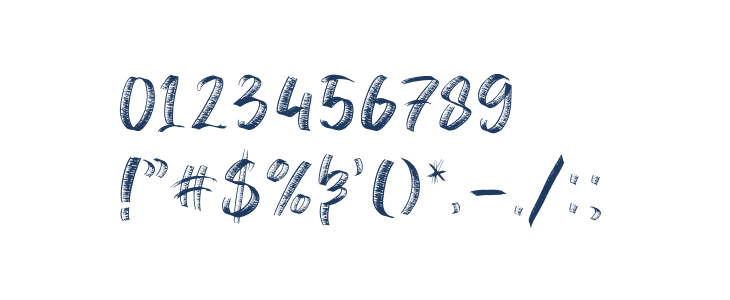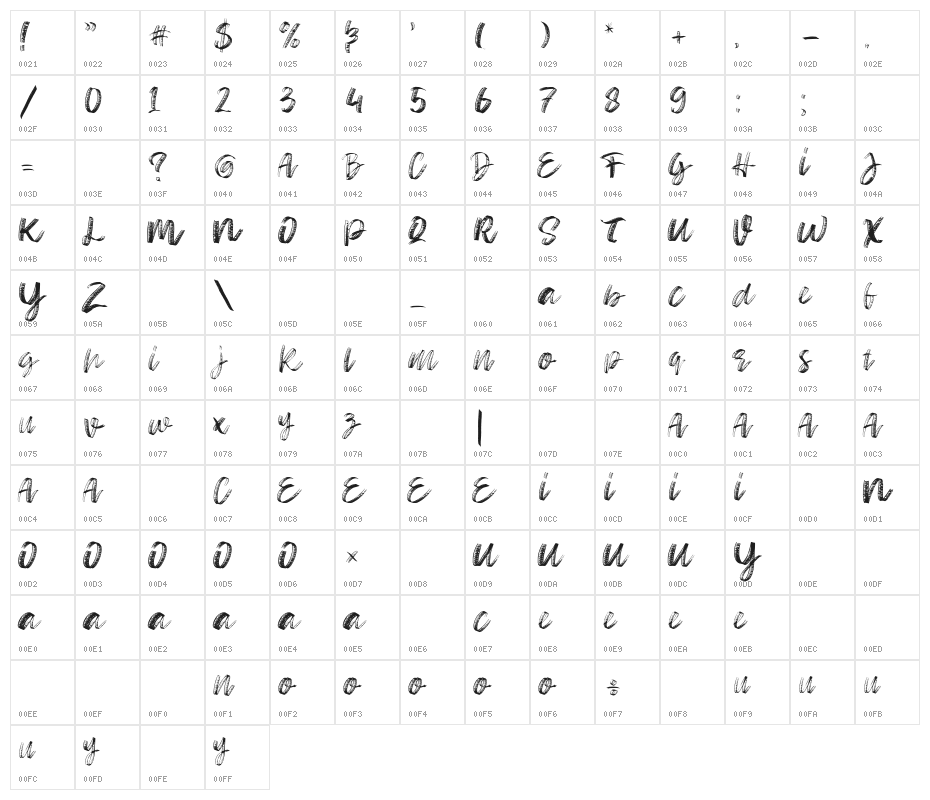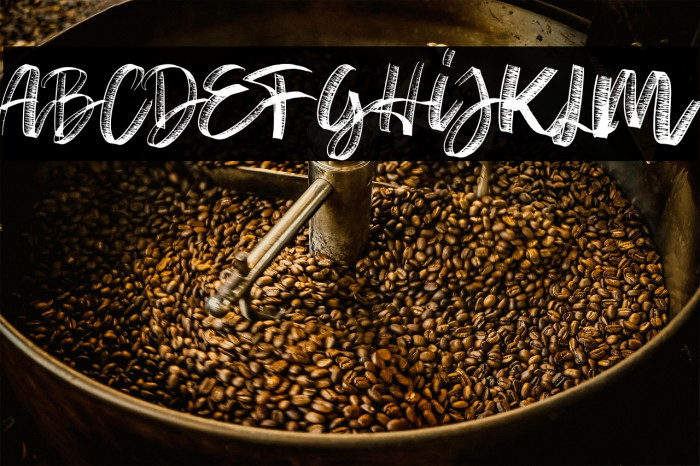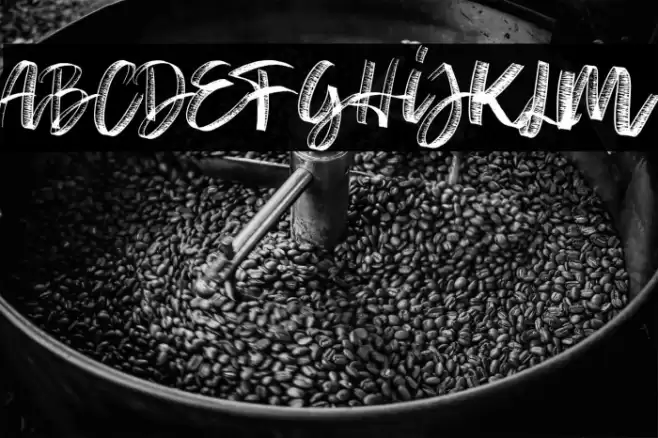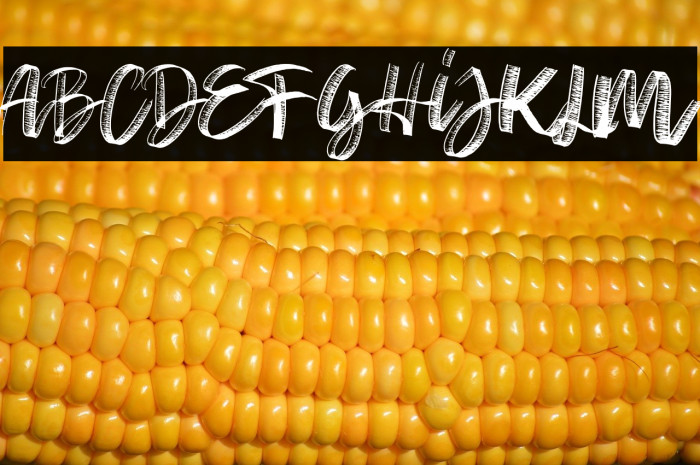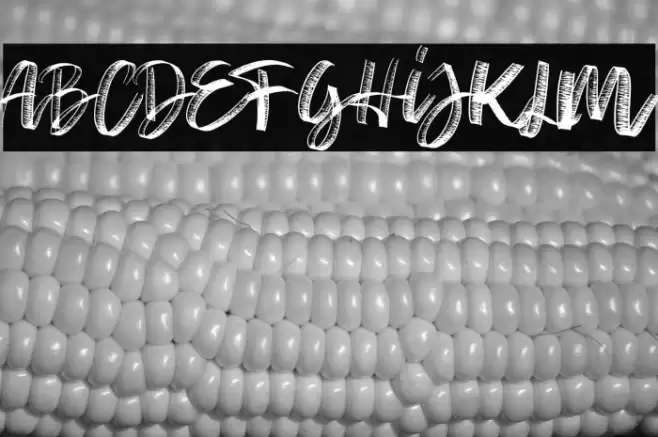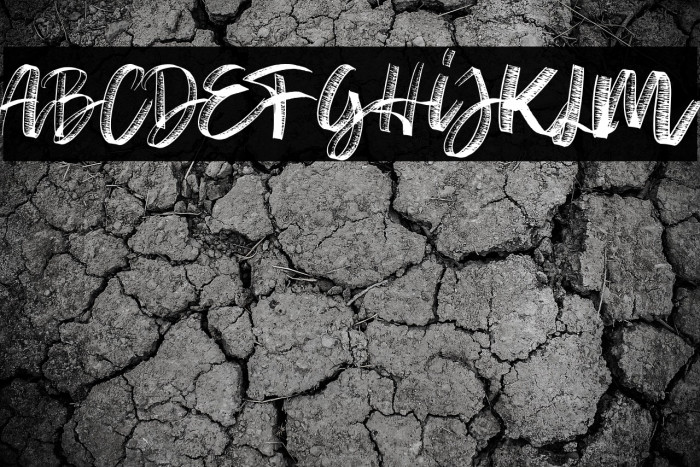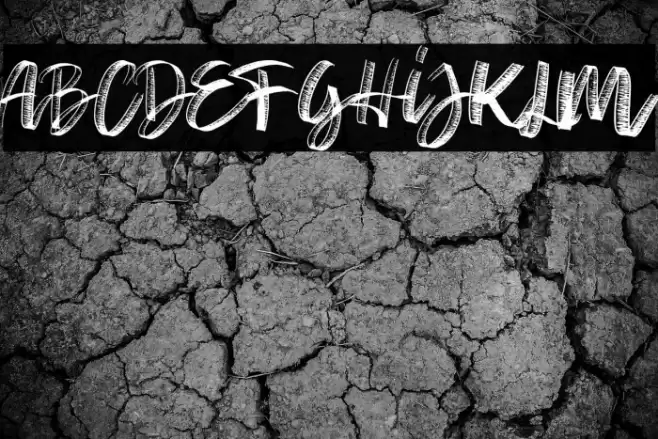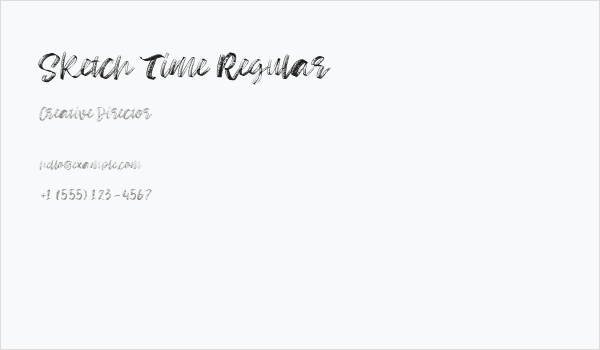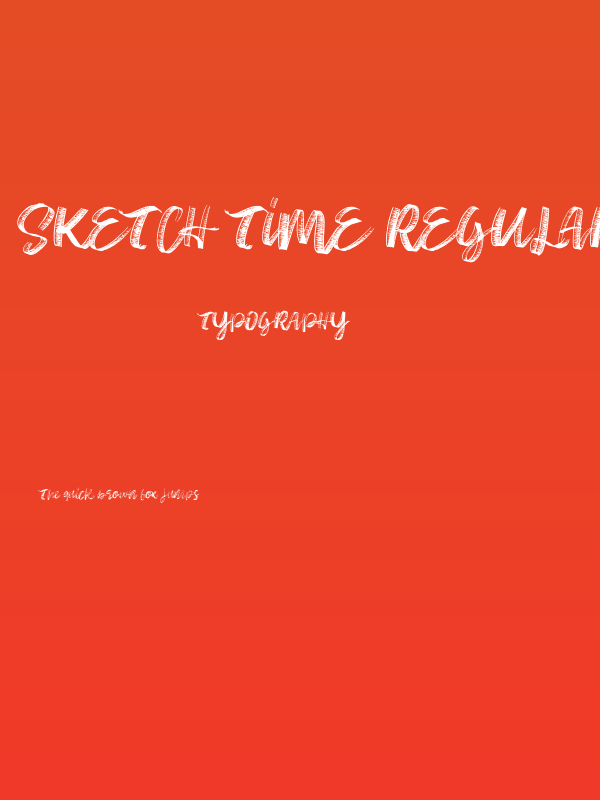
Sketch Time Regular Font
Sketch Time Regular Description
This font features a dynamic and expressive handwritten style, characterized by bold, sweeping strokes and a sketch-like texture. The letters are crafted with a sense of movement and energy, giving them a lively and artistic appearance. The uppercase and lowercase letters maintain a consistent flow, while the numerals and special characters complement the overall aesthetic with their playful yet sophisticated design. The font's sketchy texture adds depth and a handcrafted feel, making it suitable for creative and informal projects.
| Proposed Projects | Ideal for artistic projects, greeting cards, posters, and branding that requires a personal touch. |